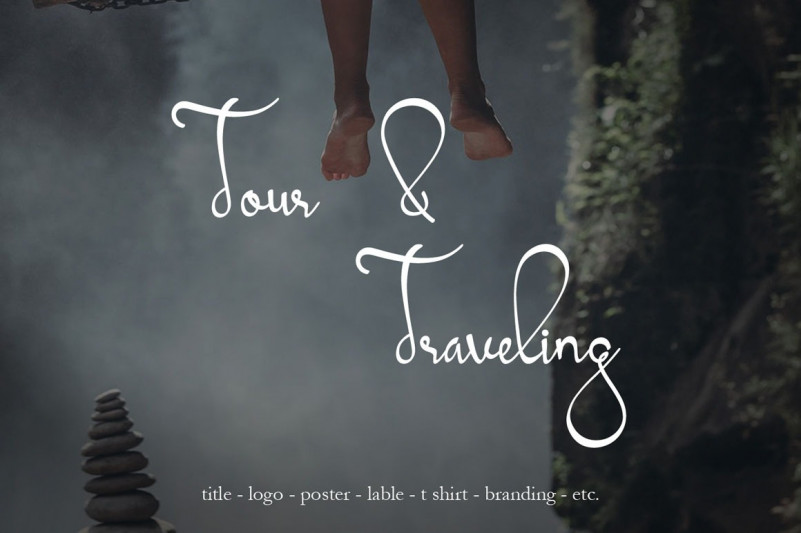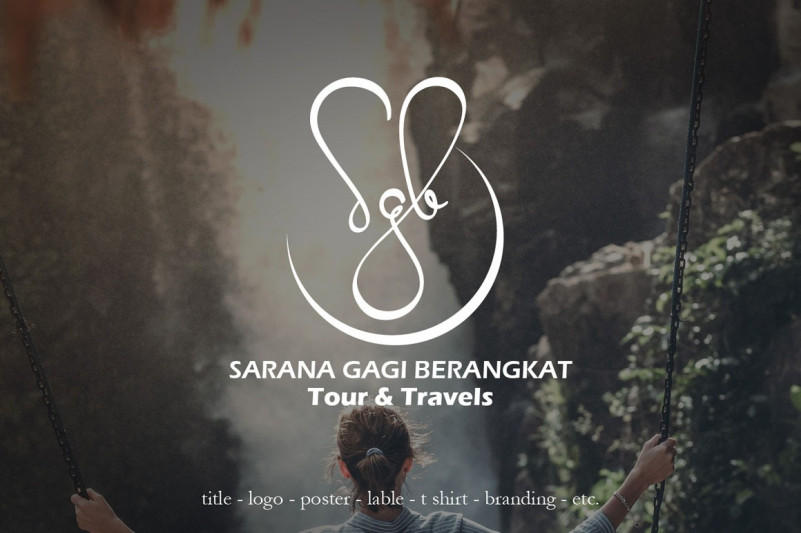
Martani Script Font
Martani is a beautiful handwritten font. It is great for crafters and graphic artists alike. Its playfulness makes it perfect for creative projects, be it inspirational wall posters or for communicating your brand.